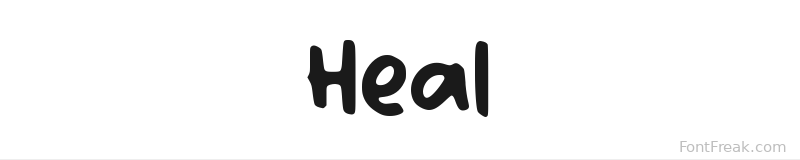
Heal
The Heal font, designed by Wahyu Eka Prasetya, is a captivating display typeface that exudes a friendly and approachable vibe. This handwritten style font features smooth, fluid strokes that give it a casual yet elegant appearance. The moderate stroke weight combined with a slightly uneven baseline adds to its organic feel, making it ideal for applications where a personal touch is desired. The font displays low contrast, ensuring readability while maintaining its artistic flair, and its letter spacing is well-balanced, promoting clarity without sacrificing style.
Heal is particularly well-suited for a variety of creative projects. It shines in wedding invitations, where its charming character can enhance the romantic theme. The font is also perfect for restaurant menus, giving a welcoming feel that matches the warmth of dining experiences. Additionally, its playful nature makes it an excellent choice for children's book covers and promotional materials for family-oriented events. Graphic designers will find it a valuable asset for branding projects aimed at a younger audience or lifestyle brands that prioritize warmth and friendliness.
Targeting graphic designers, small business owners, and content creators, Heal offers versatility that can elevate any visual narrative. The font's approachable style resonates with audiences looking for authenticity and warmth in design.
What sets the Heal font apart is its unique ability to blend casual elegance with readability. Its handwritten charm invites engagement, making it an eye-catching choice for various applications. With the Heal font free download, you can easily incorporate this delightful typeface into your next project, ensuring it leaves a lasting impression. Whether you're creating heartfelt invitations or vibrant marketing materials, Heal is a standout choice that enhances any design.